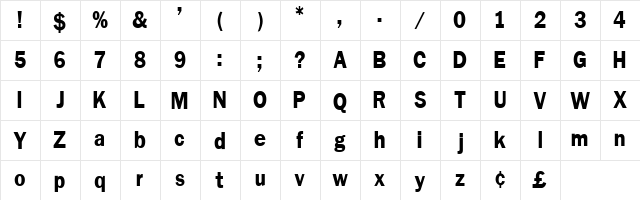
PatellaCond Normal Font Preview
PatellaCond Normal
Design Context for PatellaCond Typeface
PatellaCond is a composed and adaptable typeface that performs quietly and consistently across a wide range of design contexts. The condensed width makes it efficient for tight spaces without sacrificing legibility.